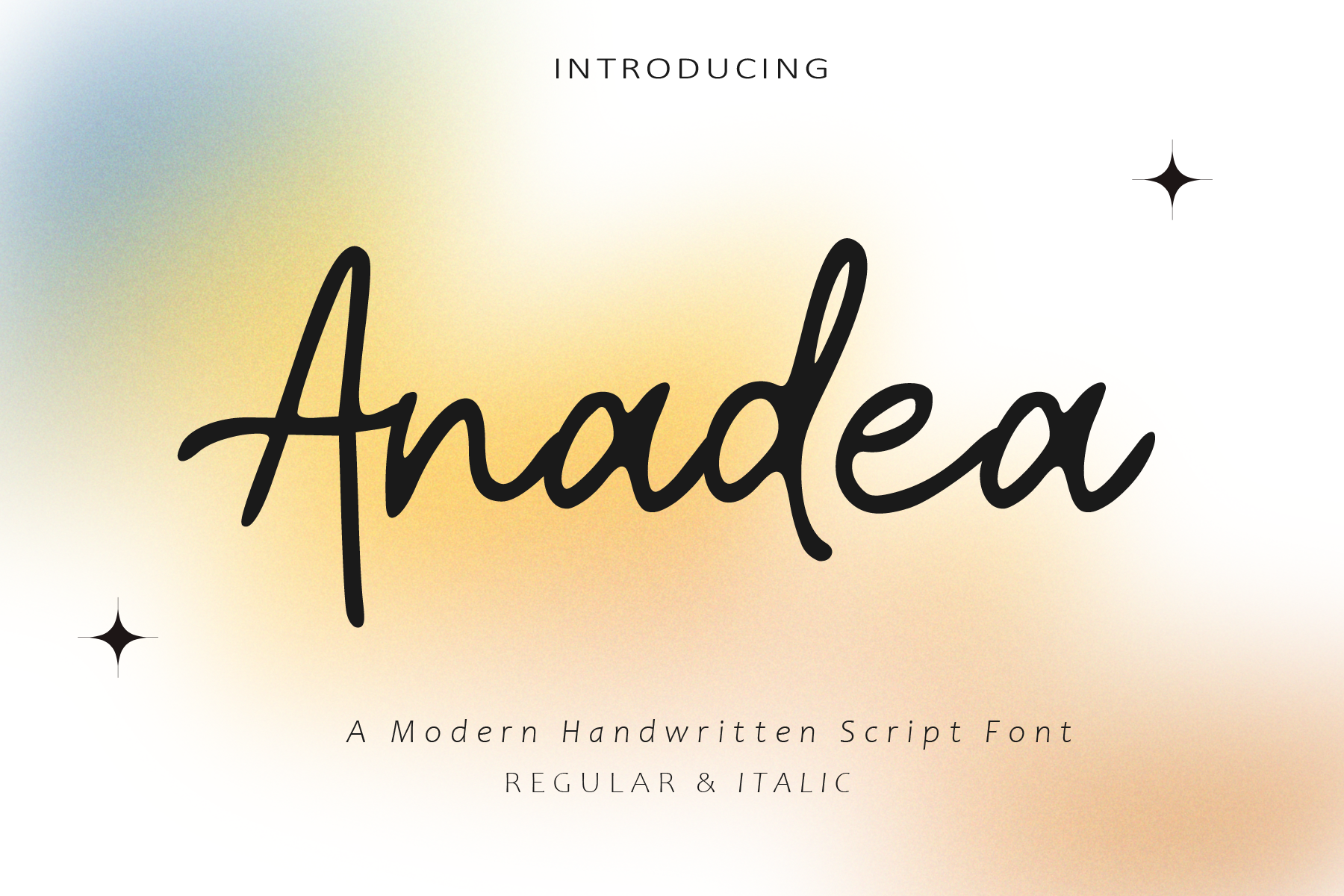
Anadea - Script Font
One of the most used typefaces is the handwriting style. Anadea is a modern script with a handwriting style that has alluring looks. It will make every need looks perfect.
Anadea is perfect for branding projects, logo, wedding designs, social media posts, advertisements, product packaging, product designs, label, photography, watermark, invitation, stationery and any projects that need handwriting taste.